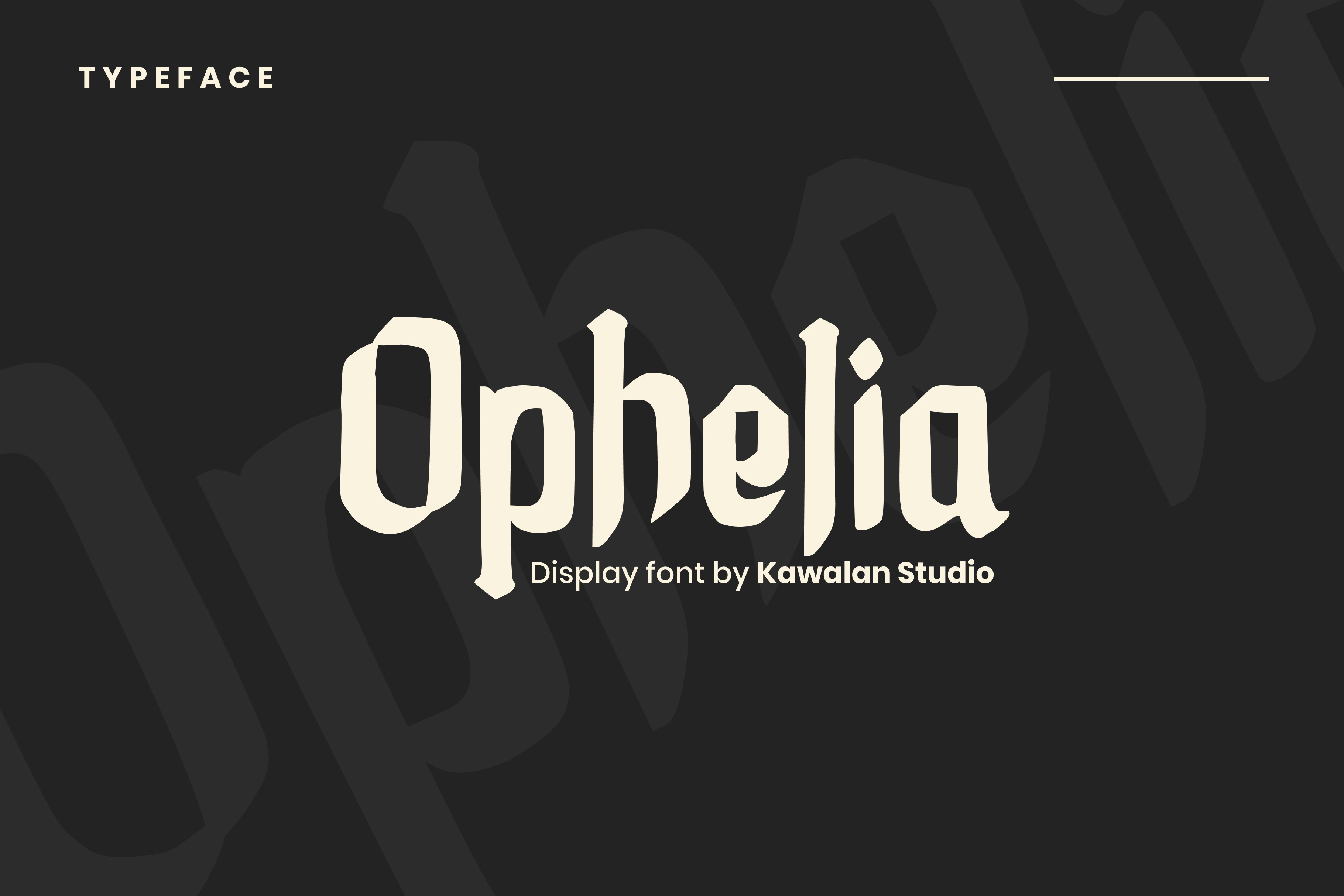
Ophelia | Display Font
Introduce, Ophelia , display font Blackletter for your design project like social media headings, cover, logo type, book cover and etc